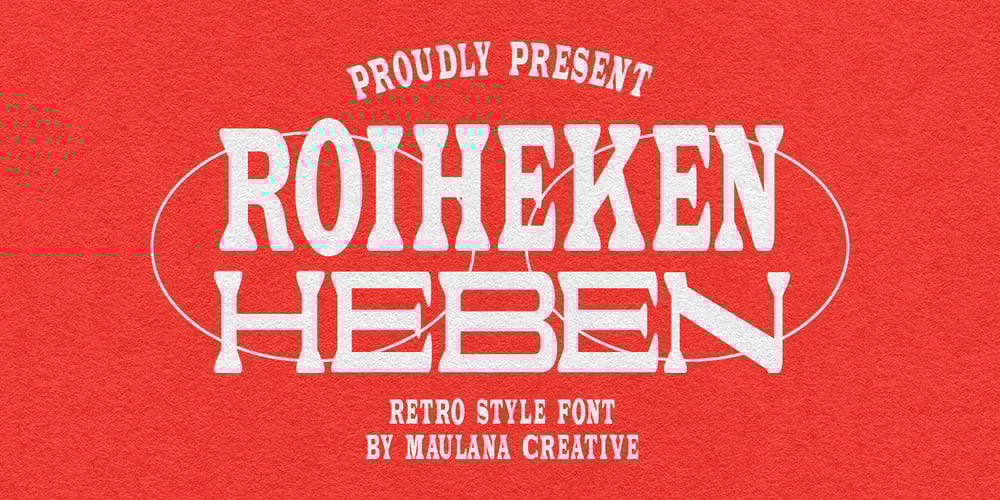
MC Roiheken Heben Font Family was designed by Gilang Maulana and published by Maulana Creative. MC Roiheken Heben contains 1 styles and family package options. Roiheken Heben is a retro serif style font. With medium low contrast stroke, vintage character with a ligature and alternate. To give you an extra creative work. Roiheken Heben font support multilingual language. This font is good for logo design, Social media, Movie Titles, Books Titles, a short text even a long text letter and good for your secondary text font with sans or serif. Make a stunning work with Roiheken Heben font.Cheers,Maulana Creative